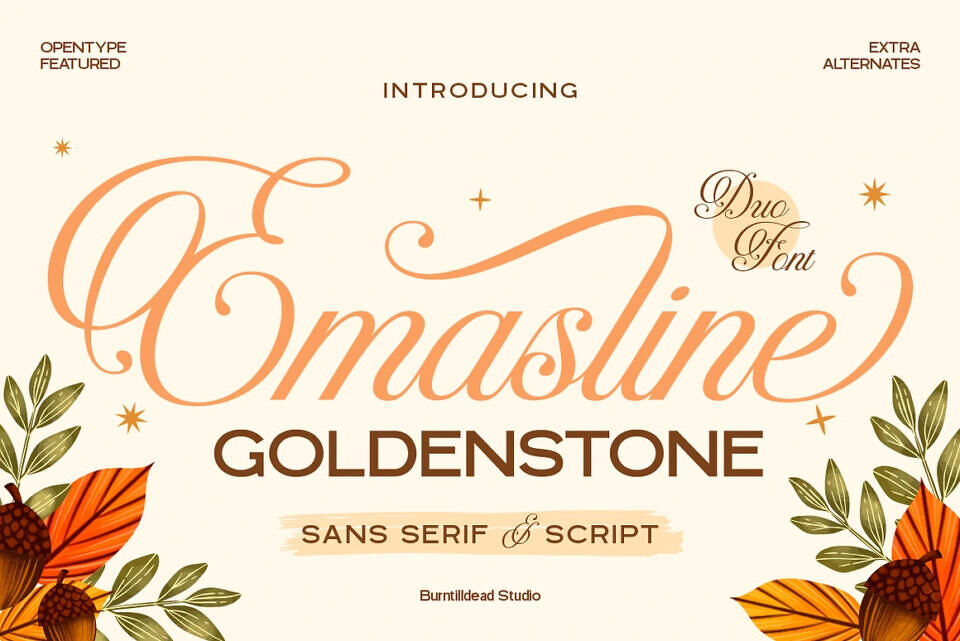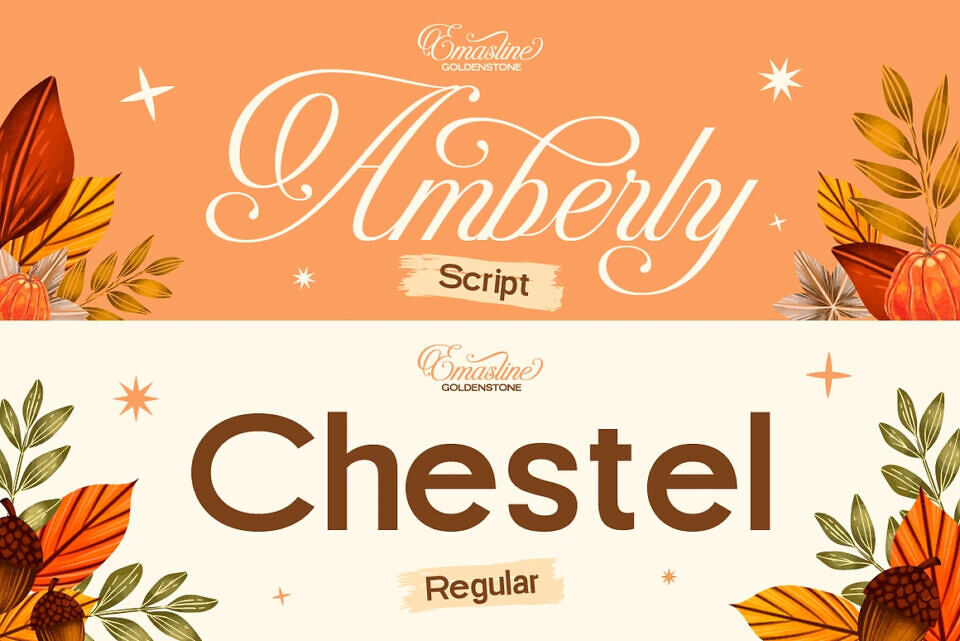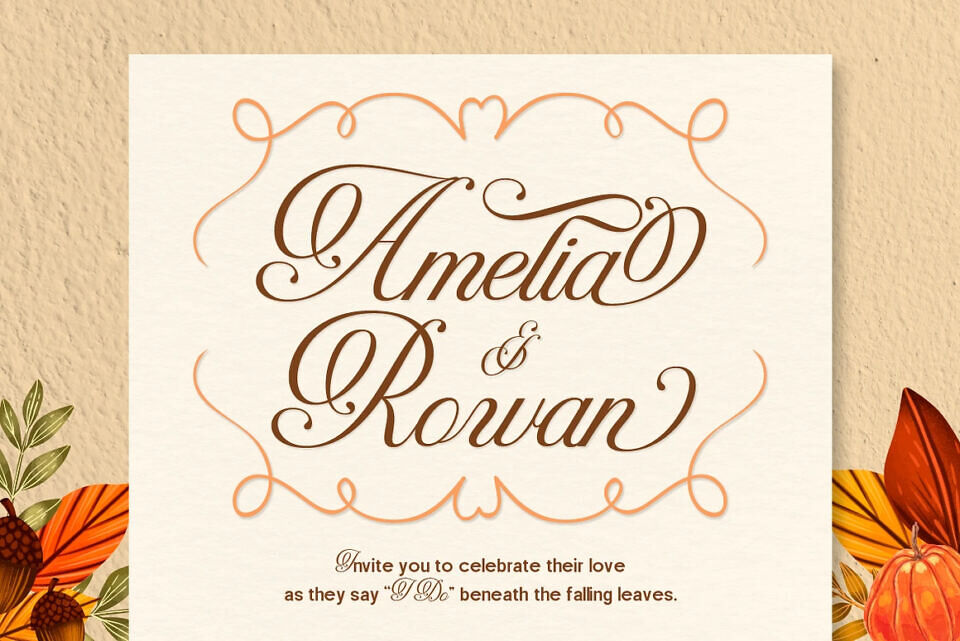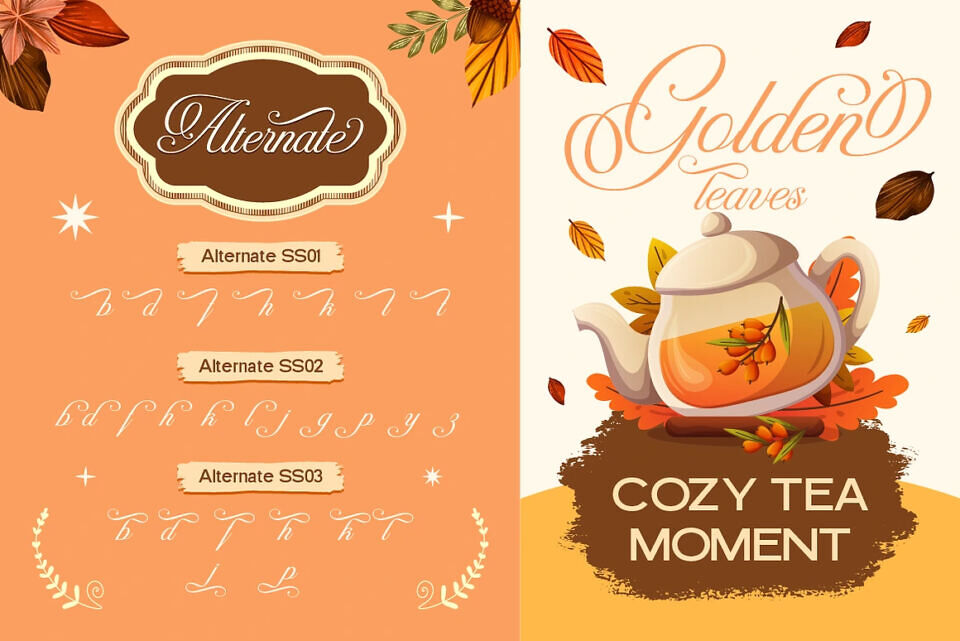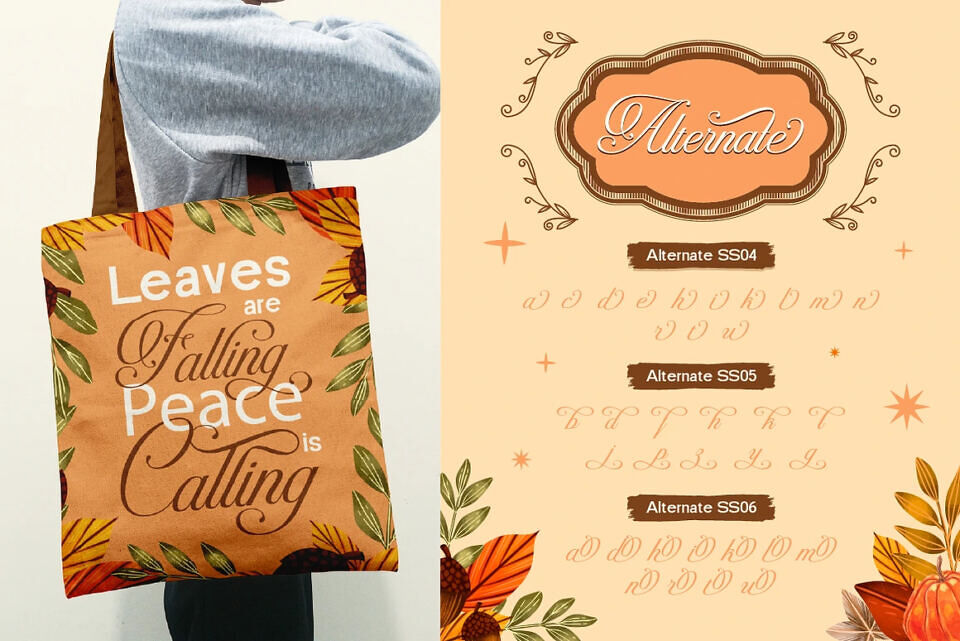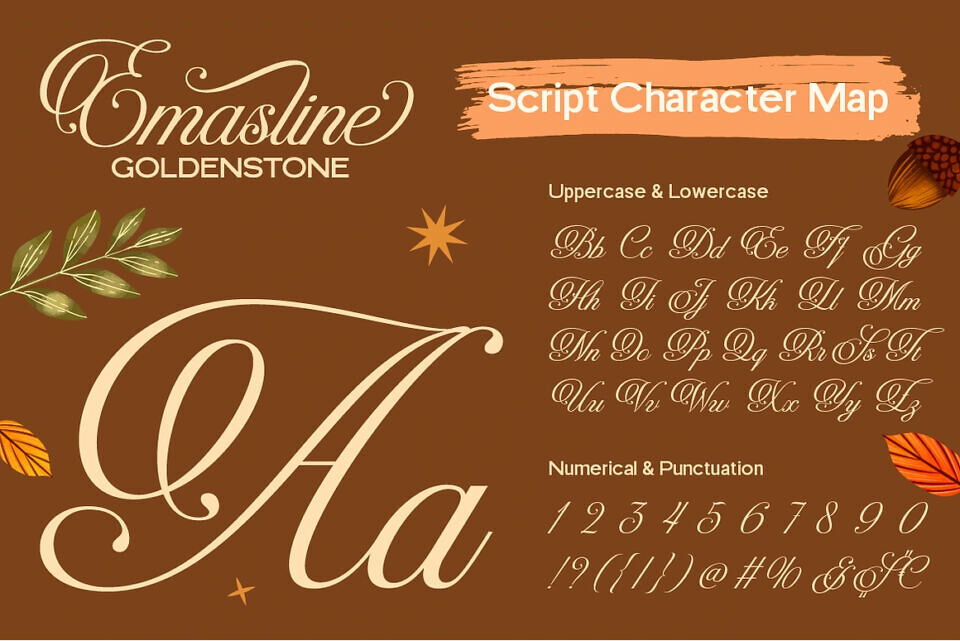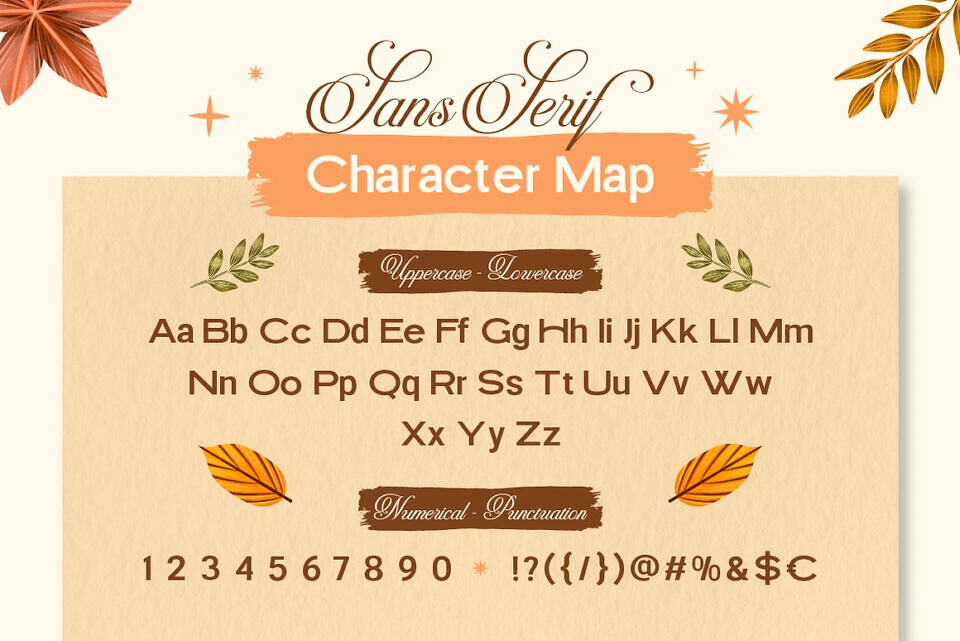
Emasline Goldenstone is a duo font that feels like a warm cup of tea on a crisp autumn afternoon. This font combines a graceful script and a modern sans serif, making it perfect for cozy seasonal designs, wedding invitations, fall branding, or anything that needs that “golden hour” touch.
Each letter flows beautifully like falling leaves, with elegant alternates and swashes to make your words look charming. Whether you’re designing a Thanksgiving menu, a greeting card, or packaging for your homemade treats, Emasline Goldenstone brings that heartwarming, nostalgic vibe to your work.